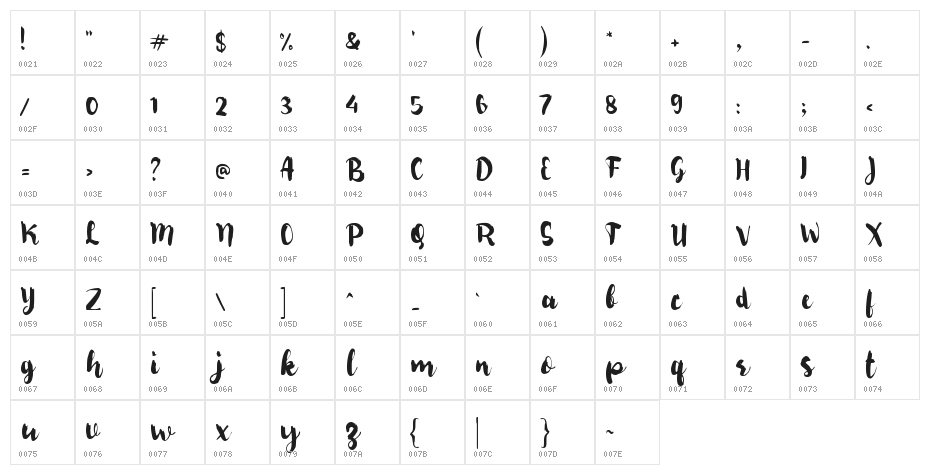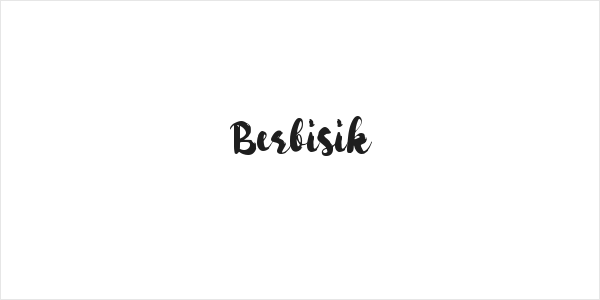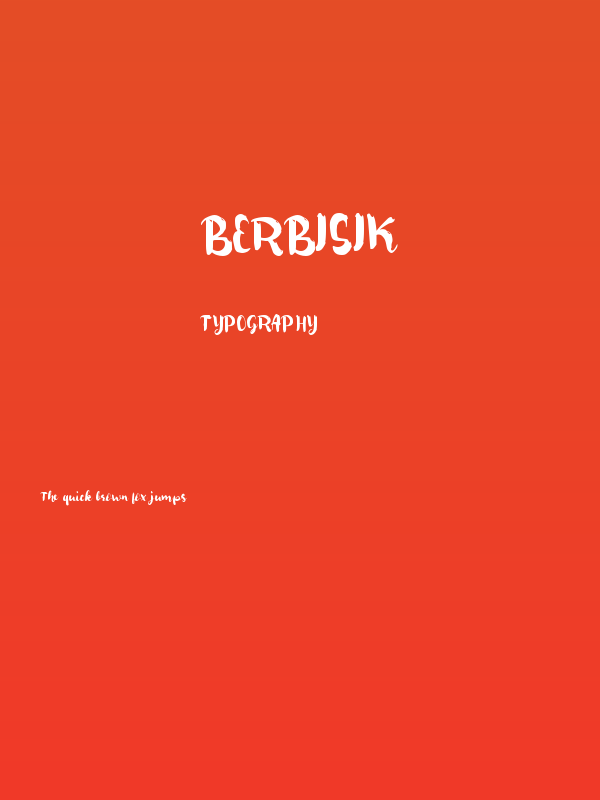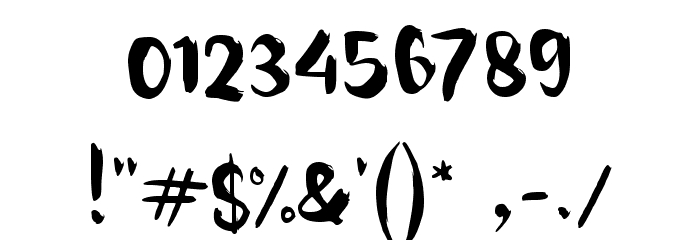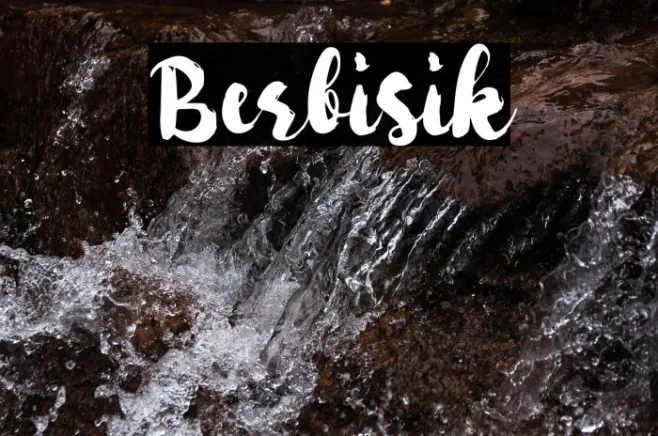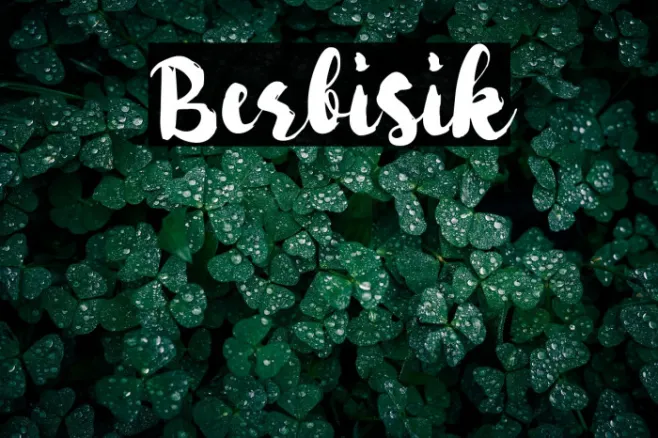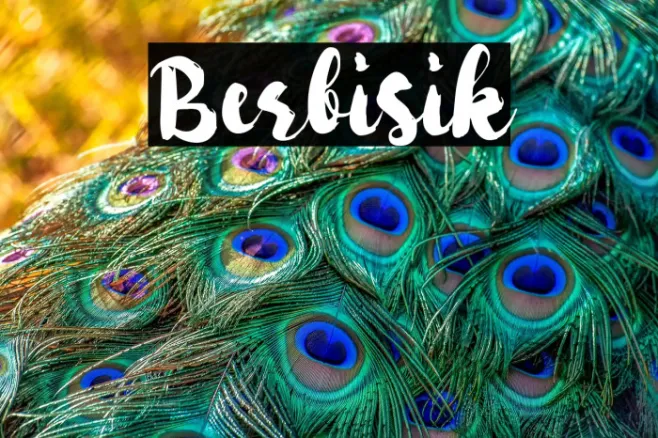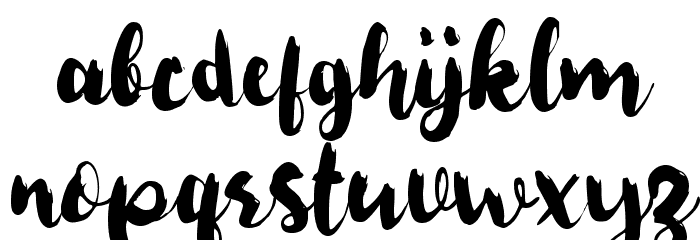
Berbisik Font
Berbisik Description
This font features a bold, brush-style script that exudes a sense of energy and creativity. The characters are fluid and dynamic, with varying stroke widths that add a lively rhythm to the text. The uppercase letters are bold and assertive, while the lowercase letters maintain a playful and informal tone. The numbers and special characters are consistent with the overall style, making them suitable for a variety of creative applications. The font's hand-drawn appearance gives it a personal and artistic touch, perfect for projects that require a unique and expressive typeface.
BERBISIK UPPERCASE
BERBISIK LOWERCASE
BERBISIK OTHER CHARS
| Proposed Projects | Ideal for branding, posters, invitations, and any project that requires a personal and artistic touch. |